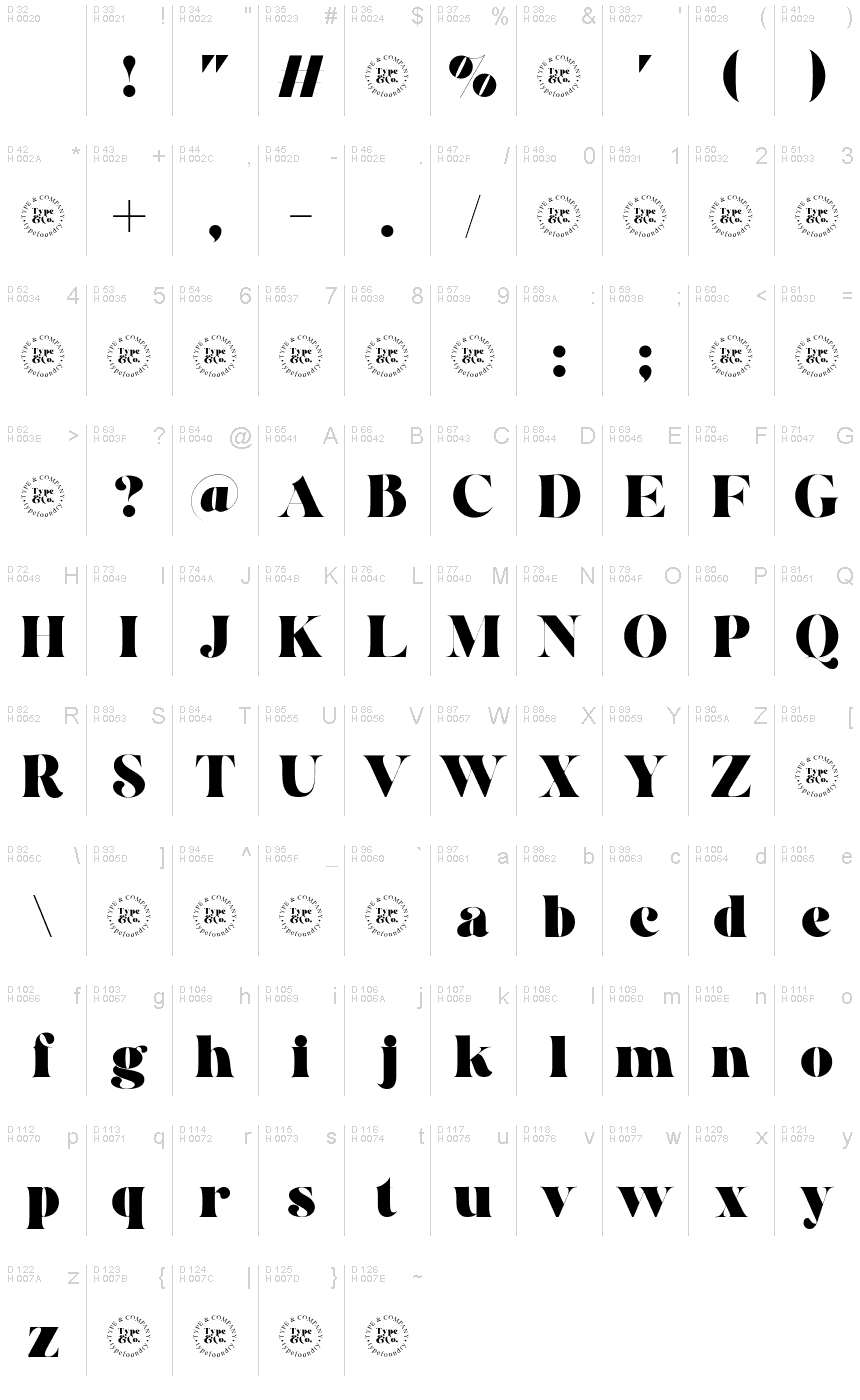
Qillo Demo Version Regular
Qillo, the extraordinary font designed by type & company Typefoundry, is a display serif font that exudes confidence with its extra-bold weight. With its elegant curves and sophisticated details, Qillo is the perfect choice for luxury branding projects, including high-end fashion labels and upscale beauty products. Its timeless appeal also makes it suitable for editorial designs, such as magazine spreads and book covers. Qillo's commanding presence ensures that your message will be noticed and remembered, making it an ideal selection for impactful headlines and attention-grabbing advertisements. Elevate your designs with the remarkable power of Qillo.